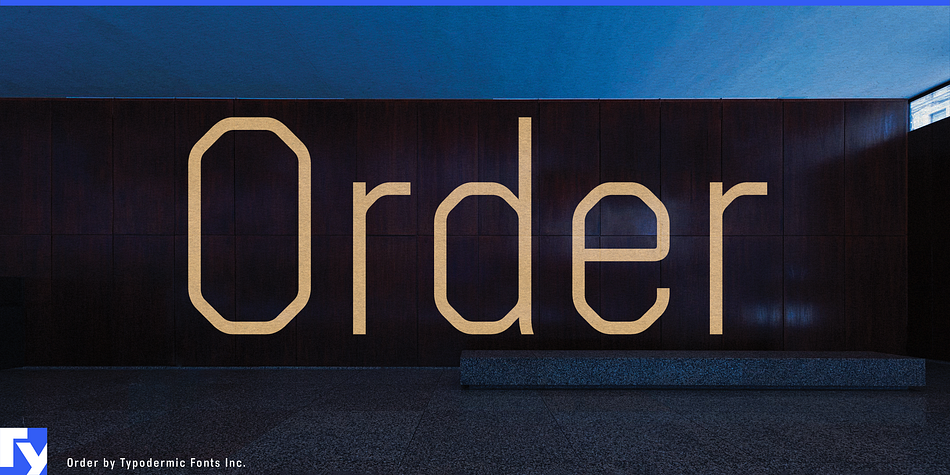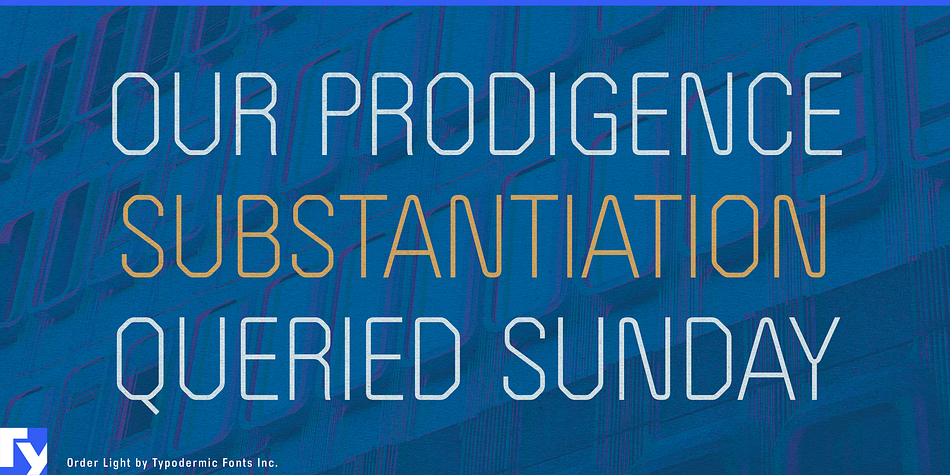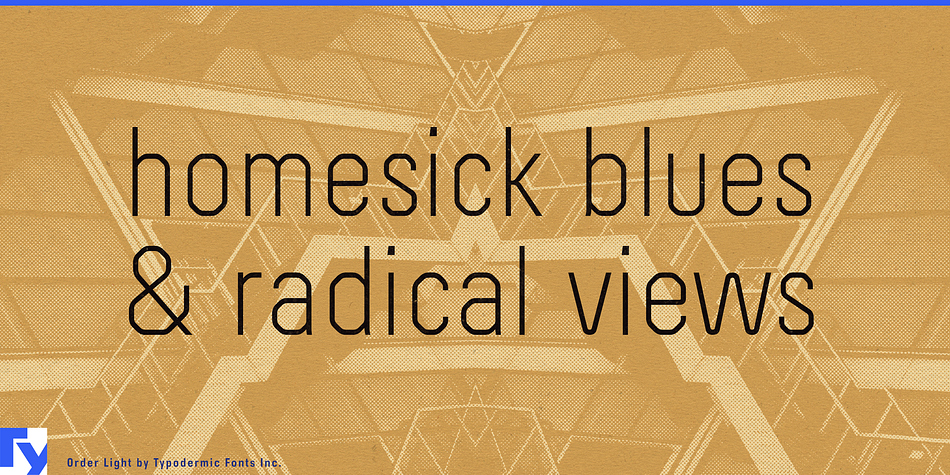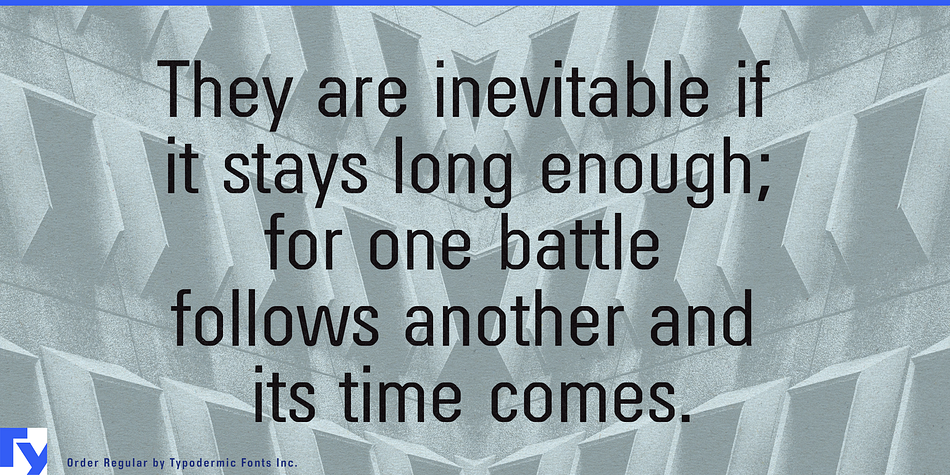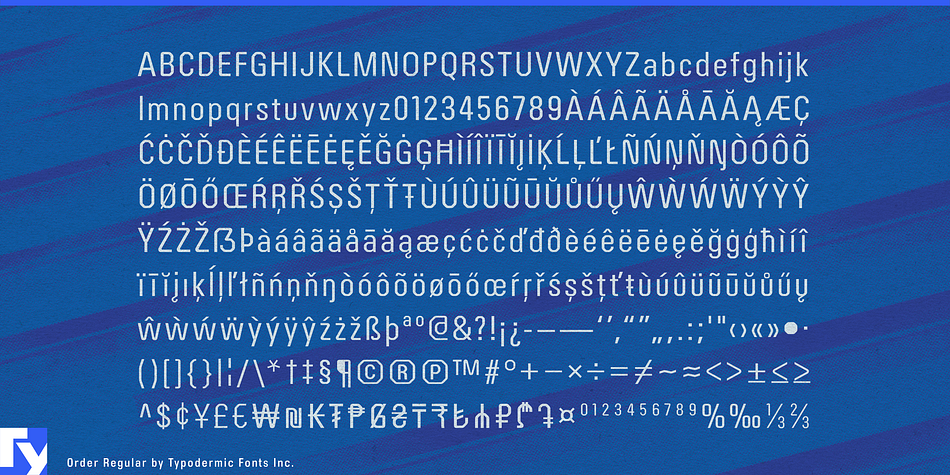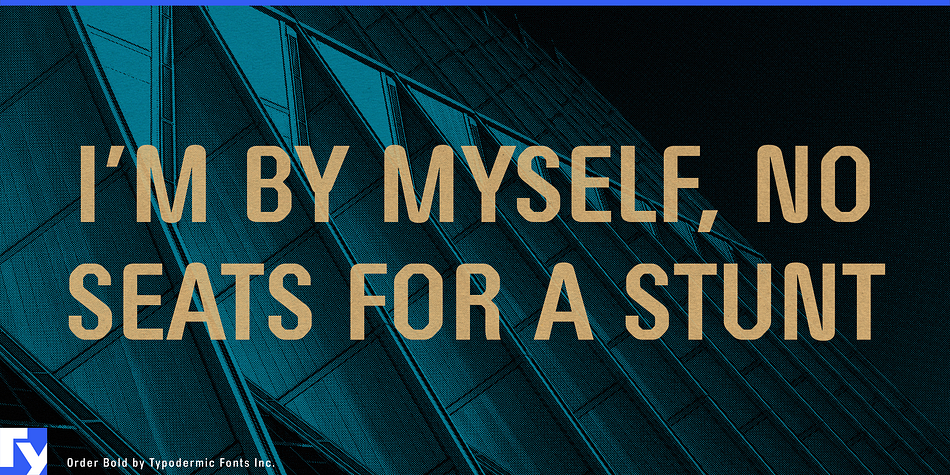
Order is a sans serif font family. This typeface has three styles and was published by Typodermic Fonts Inc.
Order is a condensed, technical, plotter-style font styled on proportions similar to Univers. Why Univers? The reader’s almost race memory familiarity allows Order to slip under the radar—contemporary technical style balanced with stealthiness.